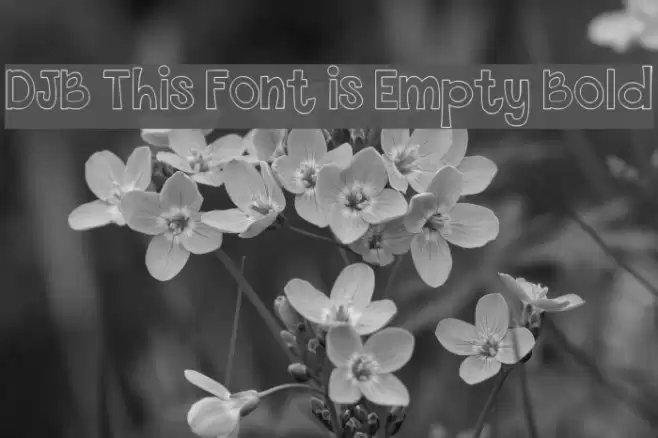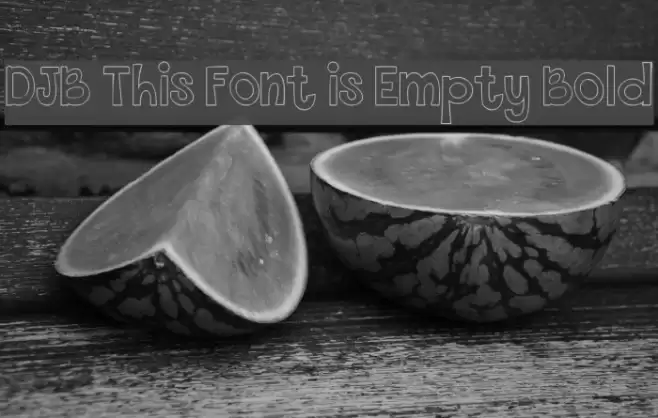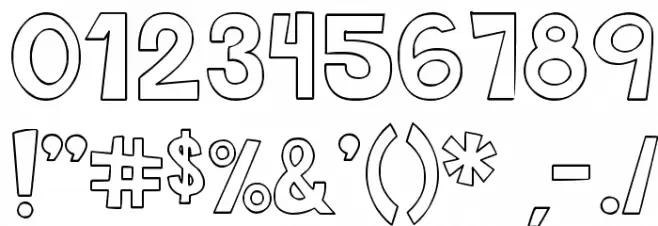
DJB This Font is Empty Bold Font
DJB This Font is Empty Bold Description
This playful and bold font features hollow, outlined characters that give it a unique and eye-catching appearance. The uppercase and lowercase letters are designed with a whimsical touch, featuring slightly irregular shapes that add to its charm. The numbers and special characters maintain the same playful style, making it versatile for various creative projects. Its boldness ensures visibility, while the hollow design keeps it light and fun. This font is perfect for projects that require a touch of creativity and playfulness, such as children's books, posters, and party invitations.
A playful, bold, and hollow font with whimsical, outlined characters from Uncategorized fonts.
- Proposed Projects: Ideal for children's books, playful posters, party invitations, and creative branding.
- Overall Style: Playful